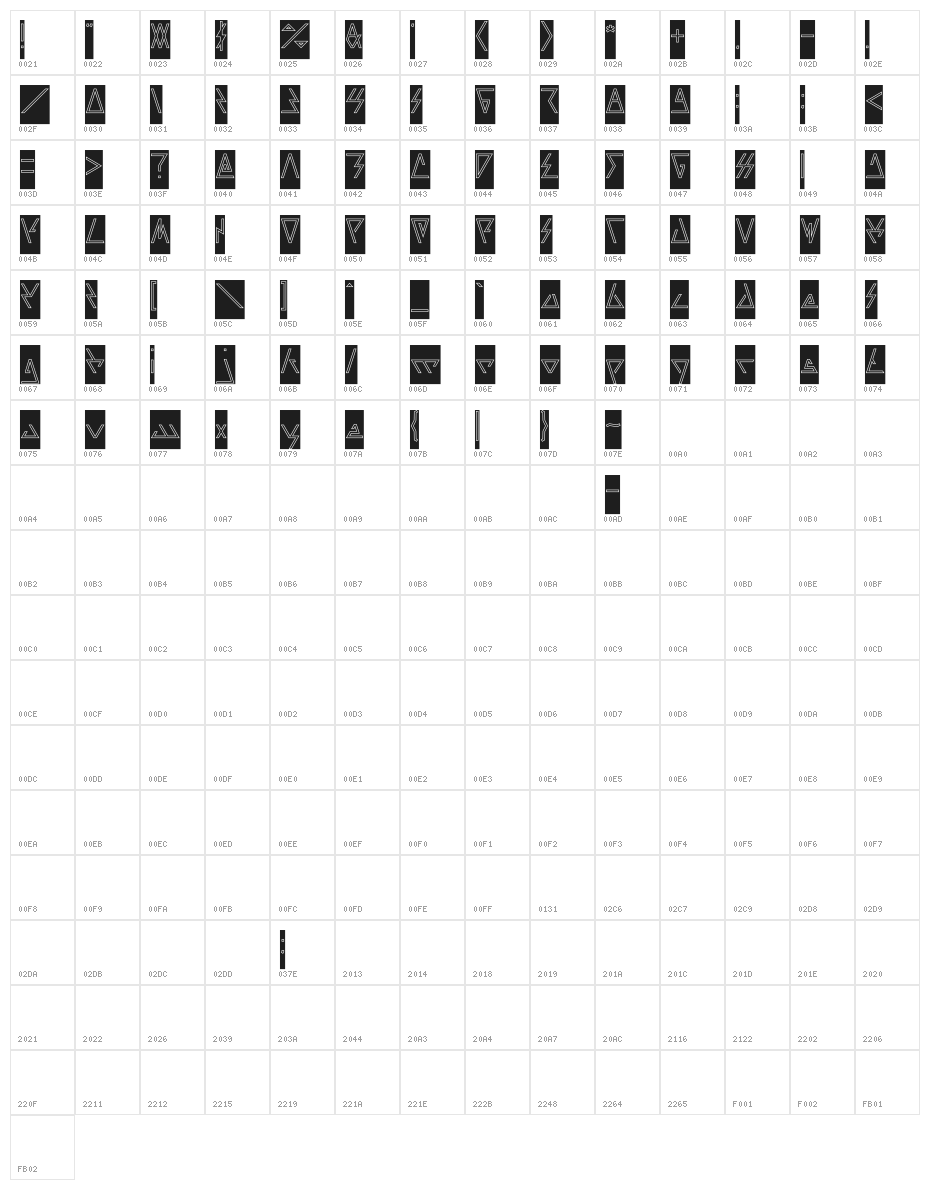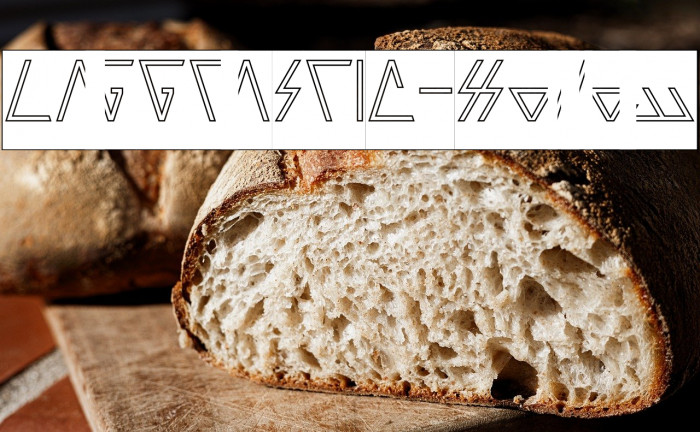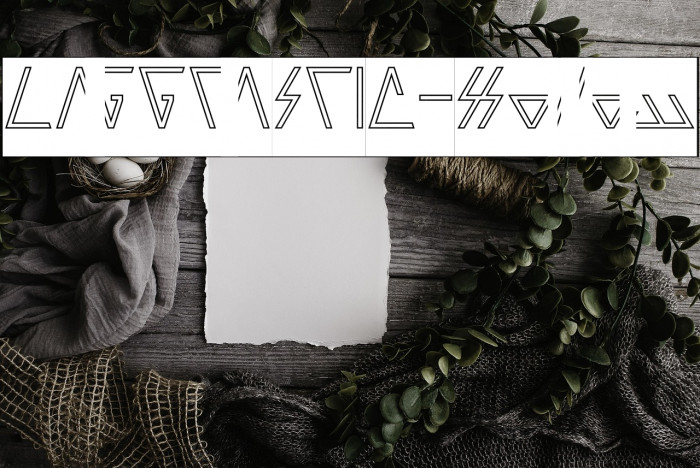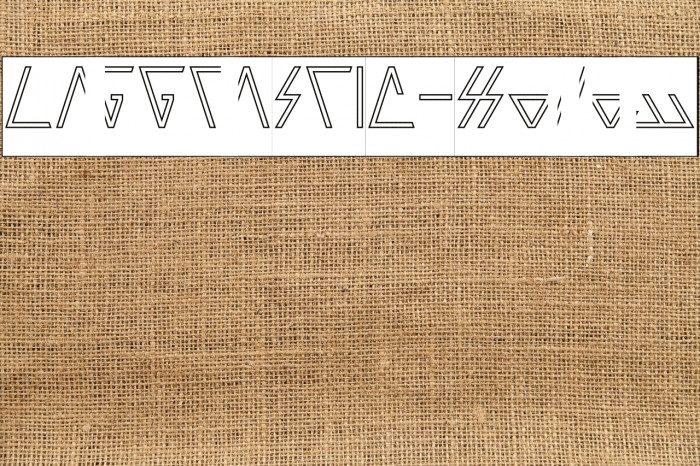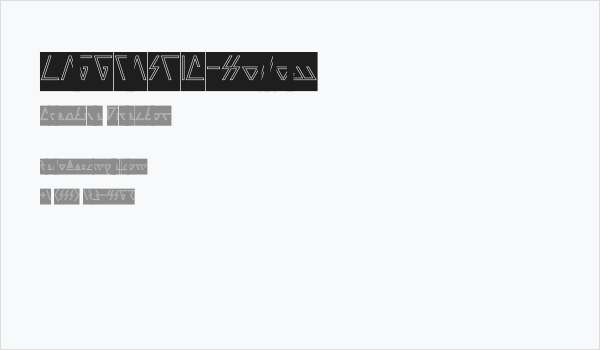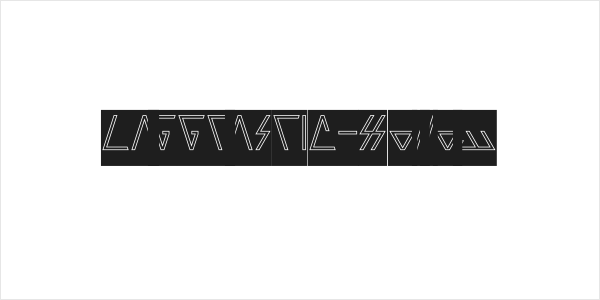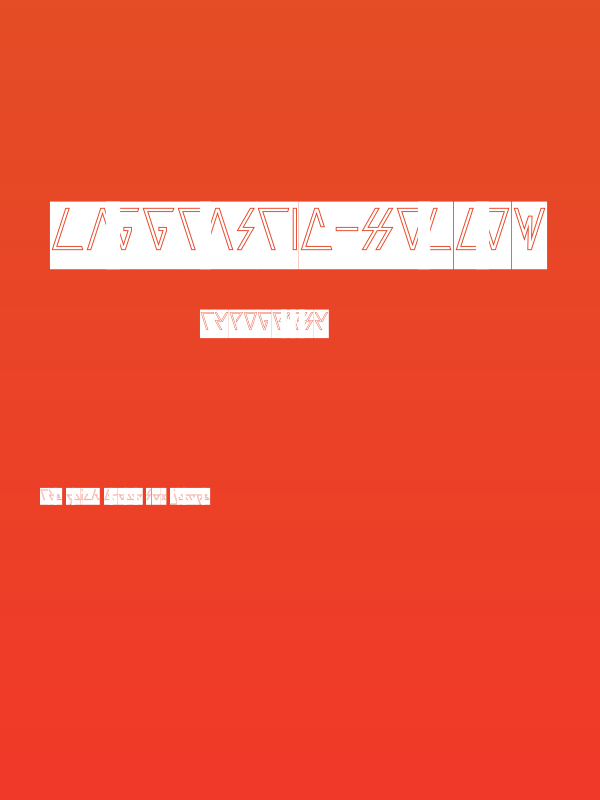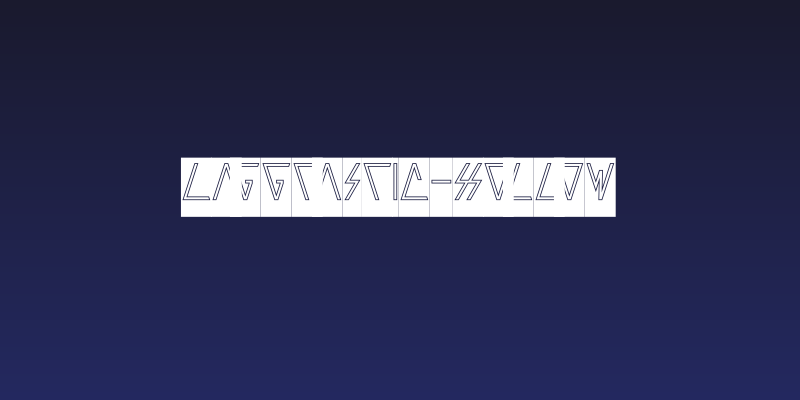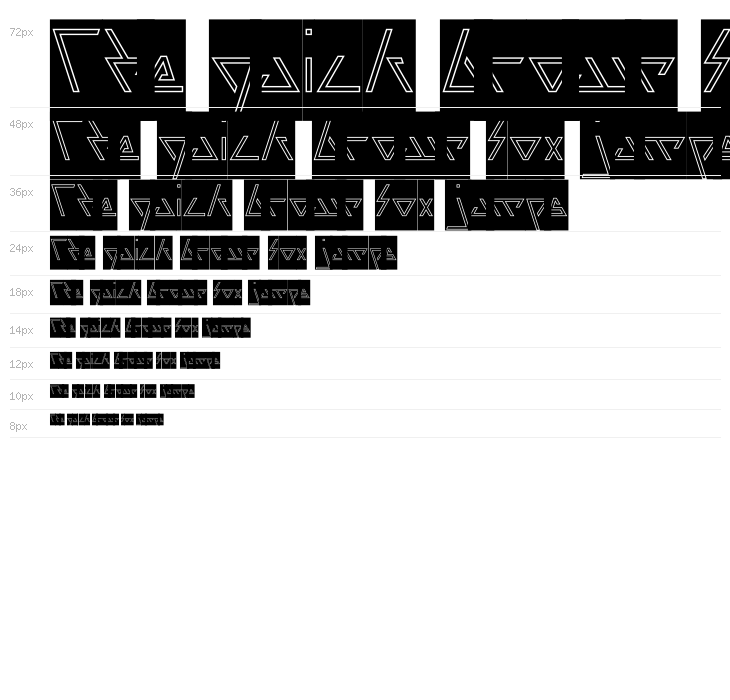
LAGGTASTIC-Hollow Font
LAGGTASTIC-Hollow Description
This font features a bold, geometric design with hollow interiors, creating a striking visual impact. Each character is constructed with angular lines and sharp edges, giving it a futuristic and edgy appearance. The uppercase and lowercase letters maintain a consistent style, with a unique emphasis on diagonal and vertical lines. Numbers and special characters follow the same design principles, ensuring uniformity across all glyphs. The hollow nature of the font adds a layer of complexity and depth, making it ideal for eye-catching designs.
| Overall Style | Futuristic |
| Proposed Projects | Ideal for futuristic designs, tech-related branding, posters, and video game graphics. |